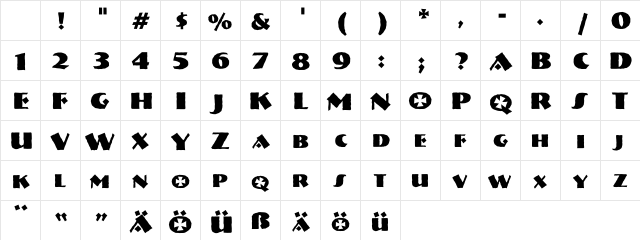
Complete VTNervouzReich Boots glyph index. Displaying only characters natively supported by VTNervouzReich Boots font.
VTNervouzReich is a composed and adaptable typeface that performs quietly and consistently across a wide range of design contexts.